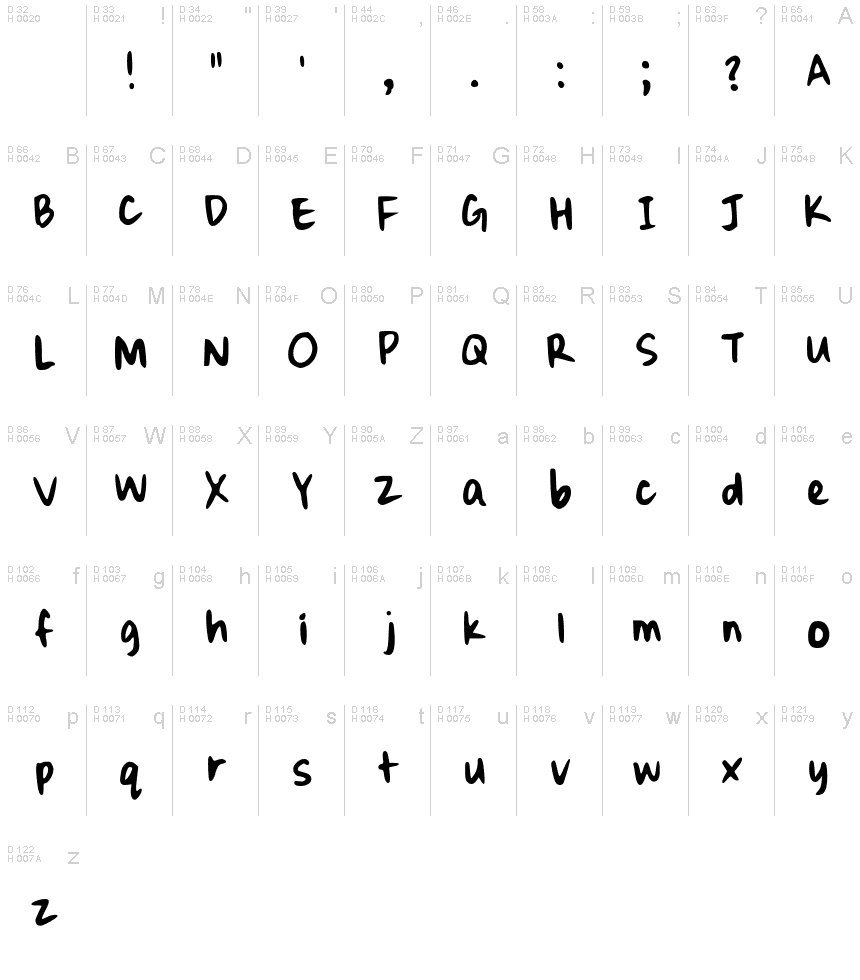
Highschool Nostalgia Regular
Highschool Nostalgia font is a nice handwritten font designed by Mike.
Reminds me of writing tons and tons during highschool